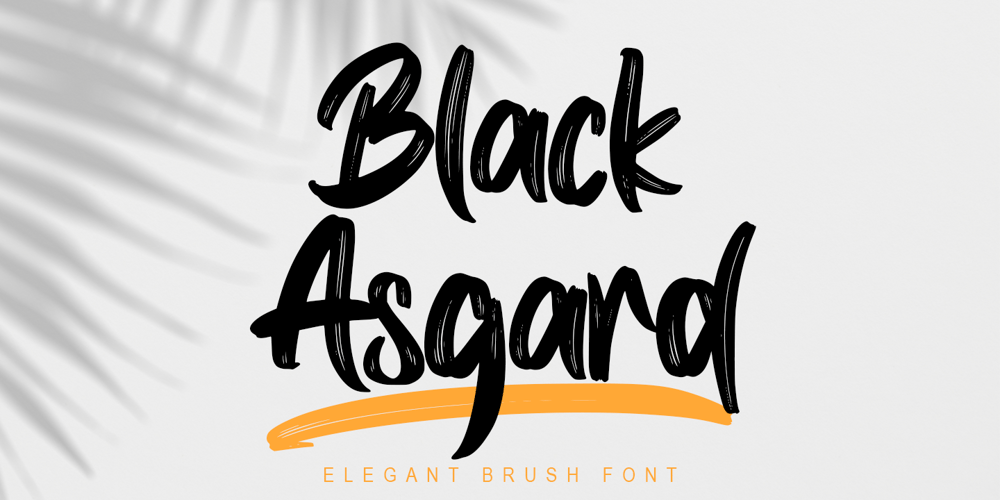
Black Asgard
Black Asgard font
Black Asgard Font Family was designed by Thomas Aradea and published by Letterara. Black Asgard contains 1 styles and family package options. Black Asgard is a natural dry brush font. this font has a striking look and a good flow font that can add style to your designs. It’s perfect for logos, quotes, posters, clothing, and every other design which needs a strong touch.